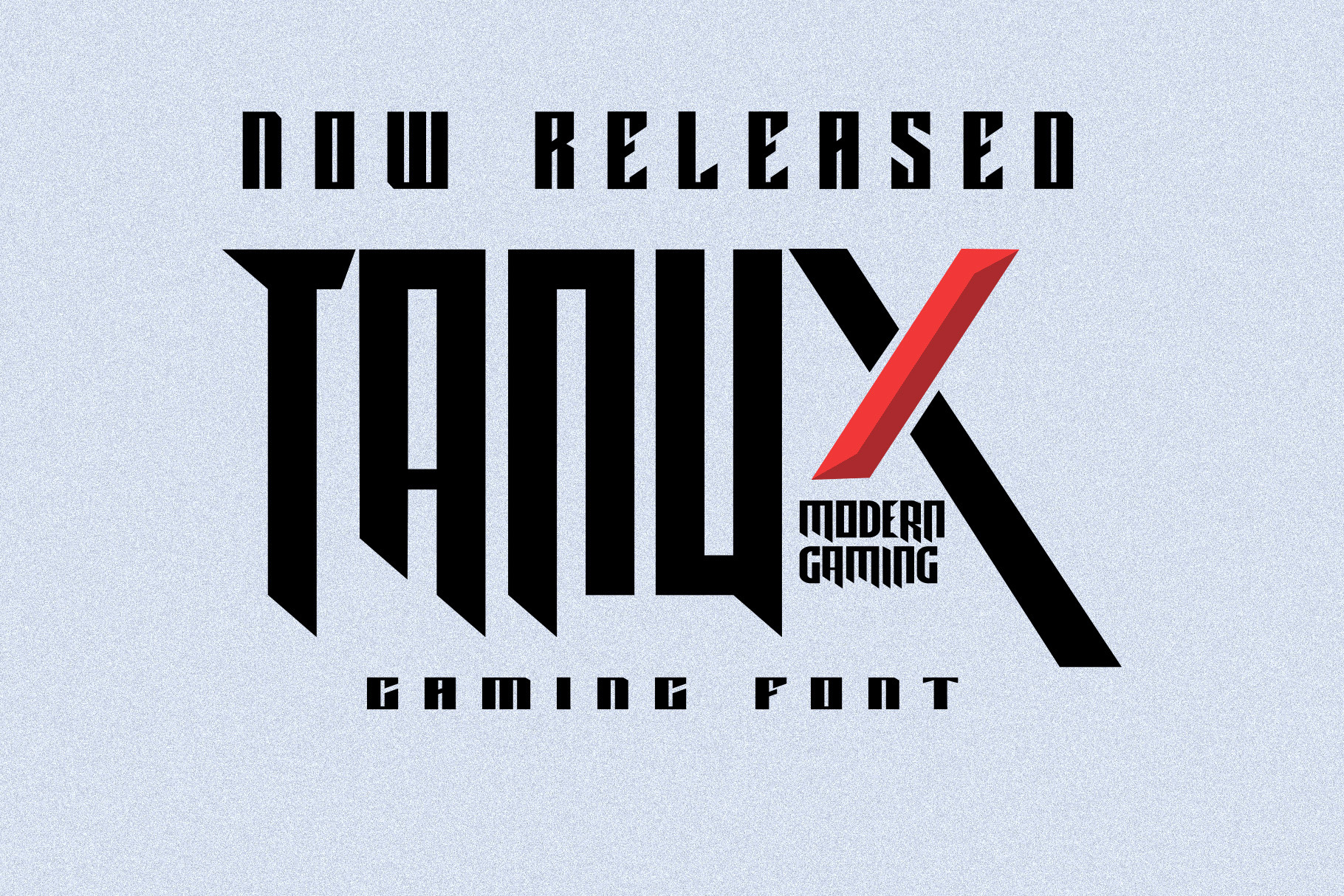
Tanux - Gaming Font
Take your gaming designs to the next level with Thanux, a bold and powerful gaming font. With upper case letters, numerals, and punctuation, this font is versatile and ready to use in any design project. Compatible with a wide range of software, including Microsoft Word, Figma, Adobe Illustrator, Photoshop, and CorelDRAW, this font is easy to install and use.
Whether you're designing a gaming logo, a video game poster, or any other gaming-related project, Thanux is the perfect font to add a touch of edge and power to your designs.
- A bold and powerful gaming font
- Includes upper case letters, numerals, and punctuation
This font is perfect for:
- Gaming logos and designs
- Video game posters and advertising
- Gaming-related projects that need a touch of power and edge.
- Bring your gaming designs to life with Thanux, the perfect gaming font!